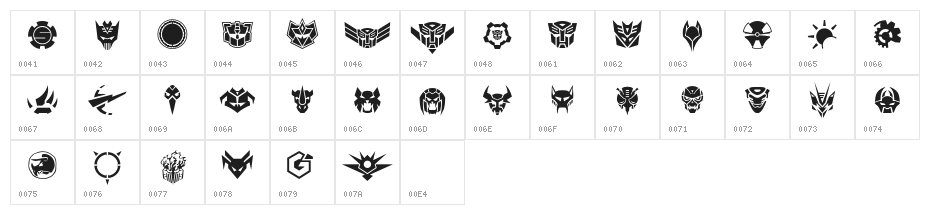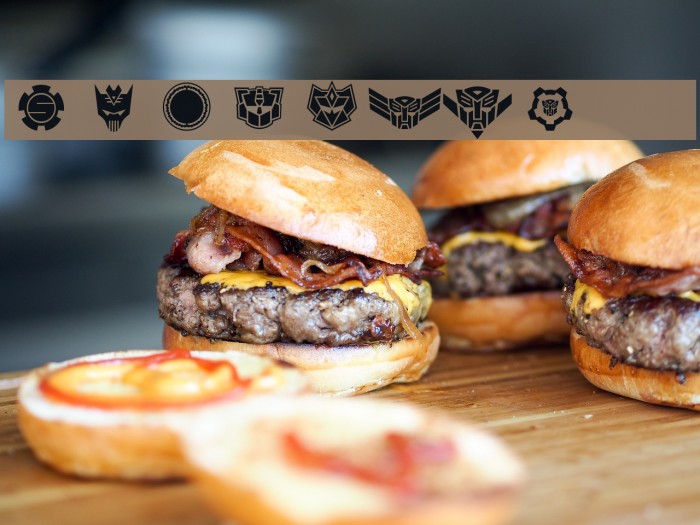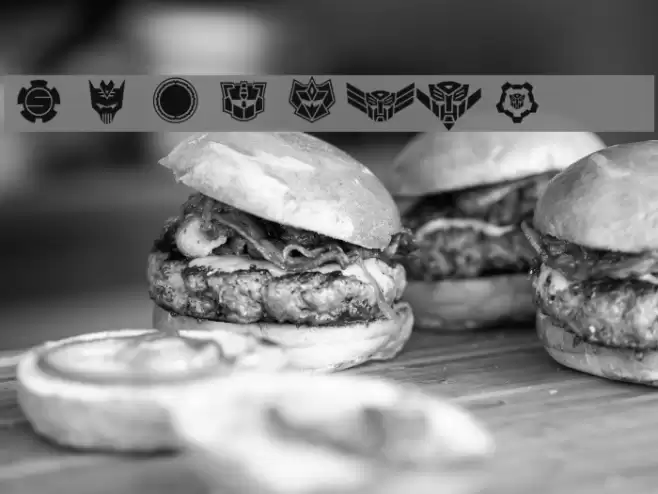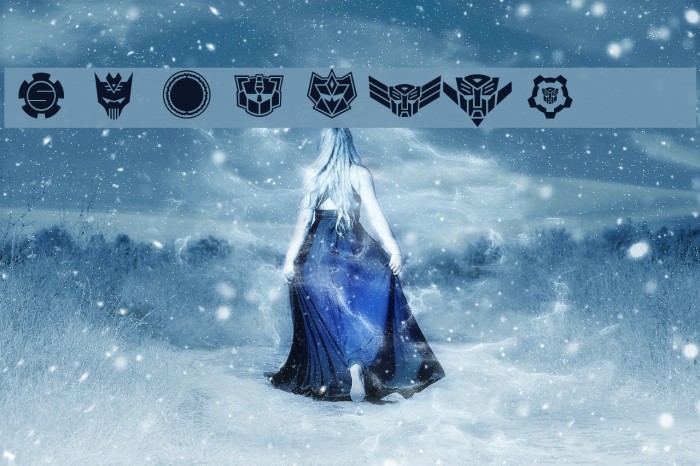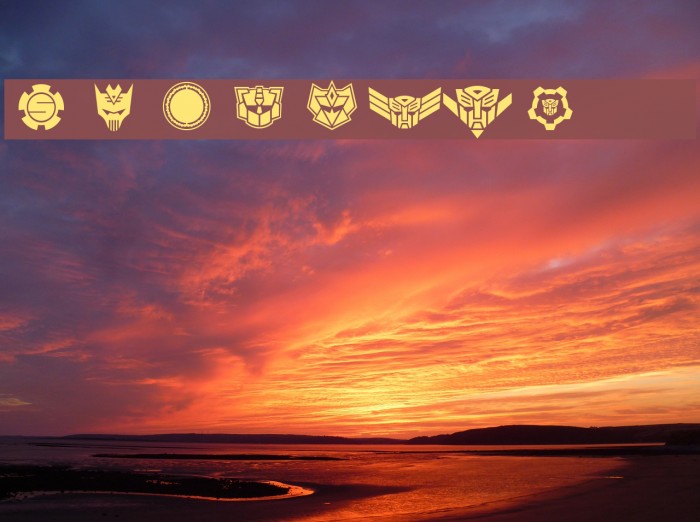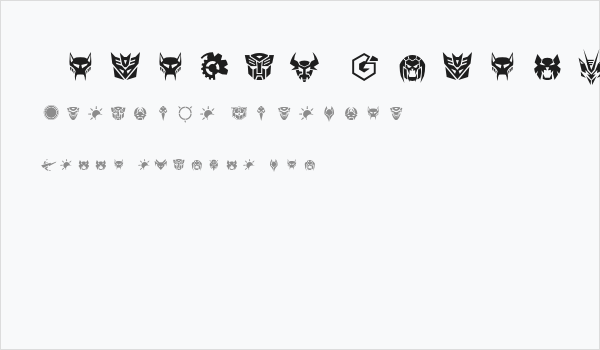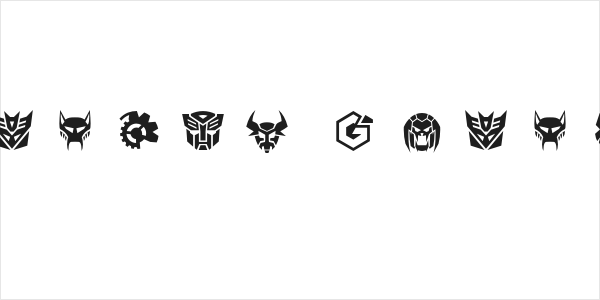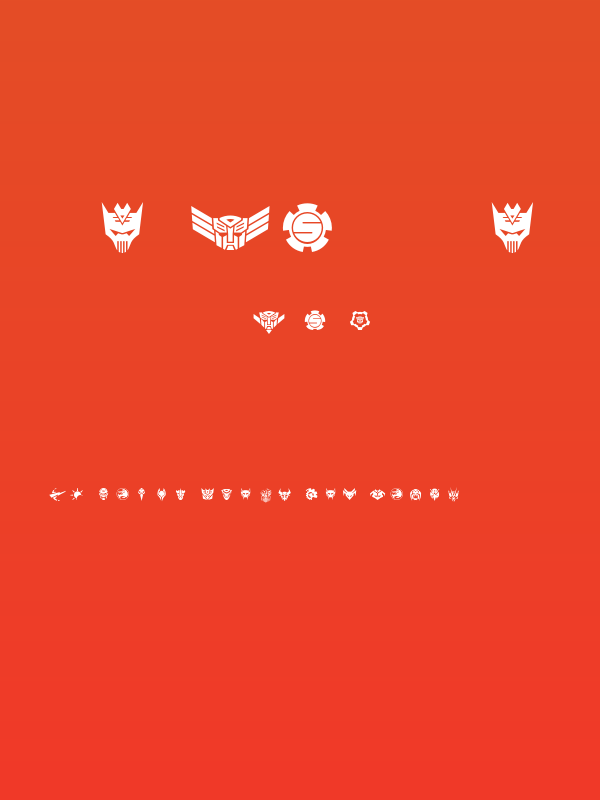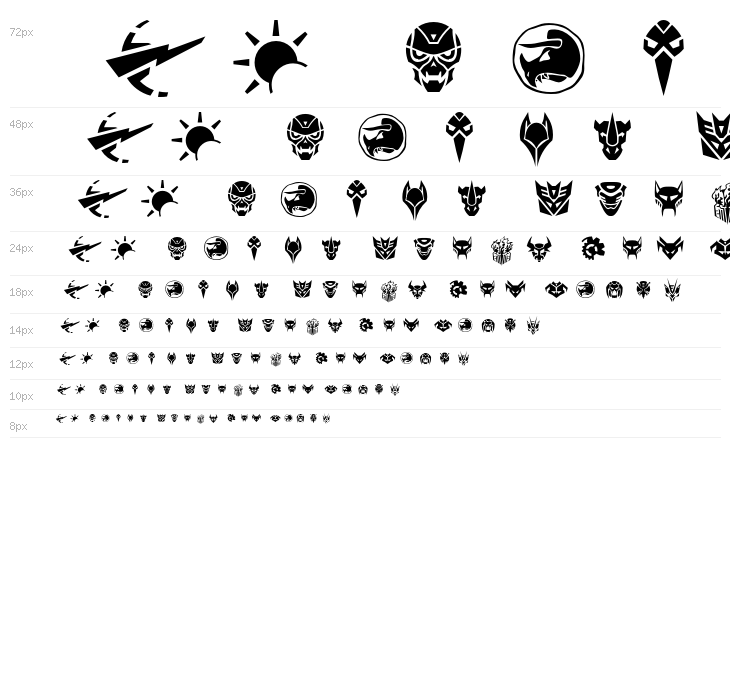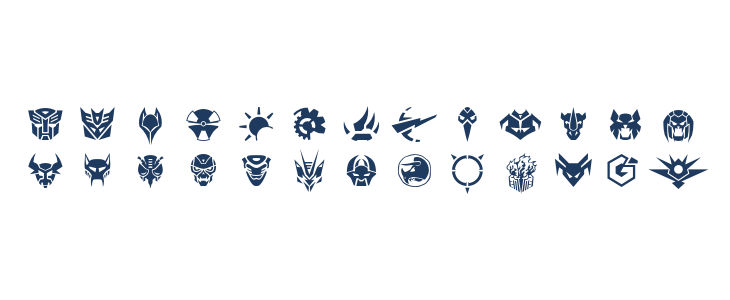
RobofanSymbols Font
RobofanSymbols Description
A decorative symbol font featuring a variety of stylized robotic and mechanical emblems, each glyph representing a unique icon rather than a traditional letterform. The icons are bold, geometric, and highly detailed, with strong use of negative space and angular shapes, evoking a futuristic and mechanical aesthetic.
| Overall Style | Futuristic, Decorative, Mechanical |
| Use Case | Logos, Icons, Game UI, Posters |
| Proposed Projects | Perfect for sci-fi themed posters, game UI elements, branding for tech products, fan art, and collectibles packaging. |